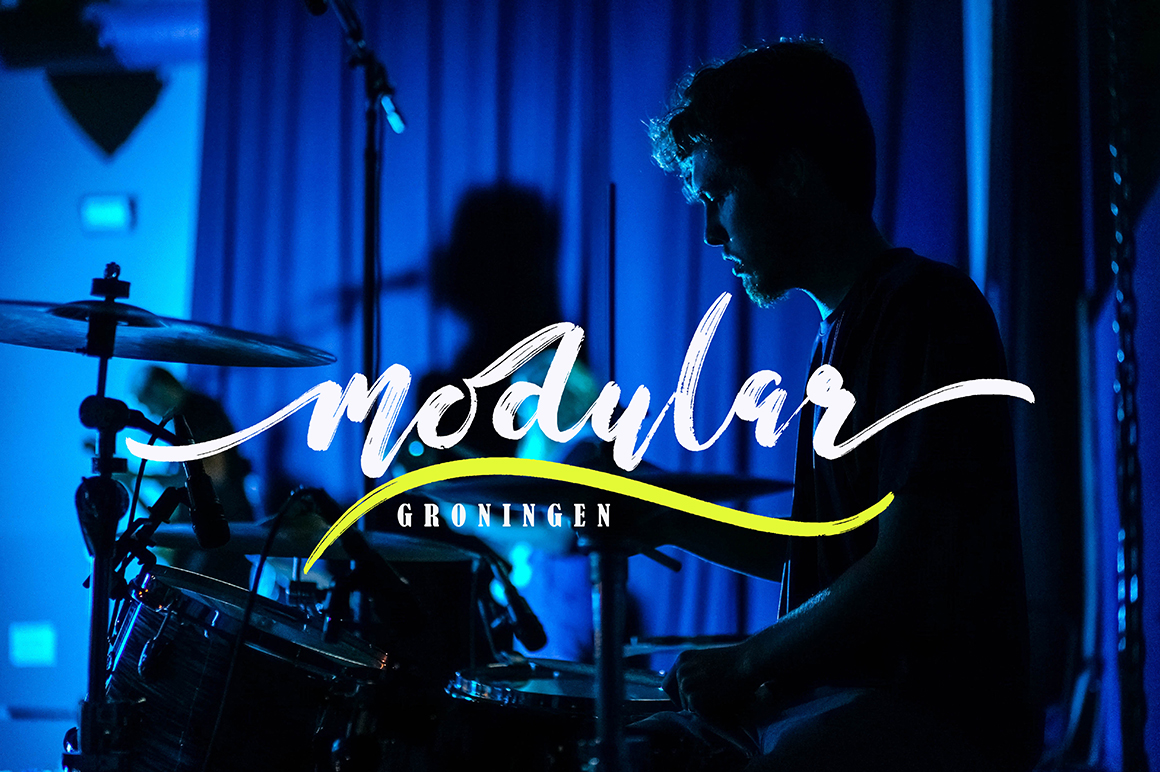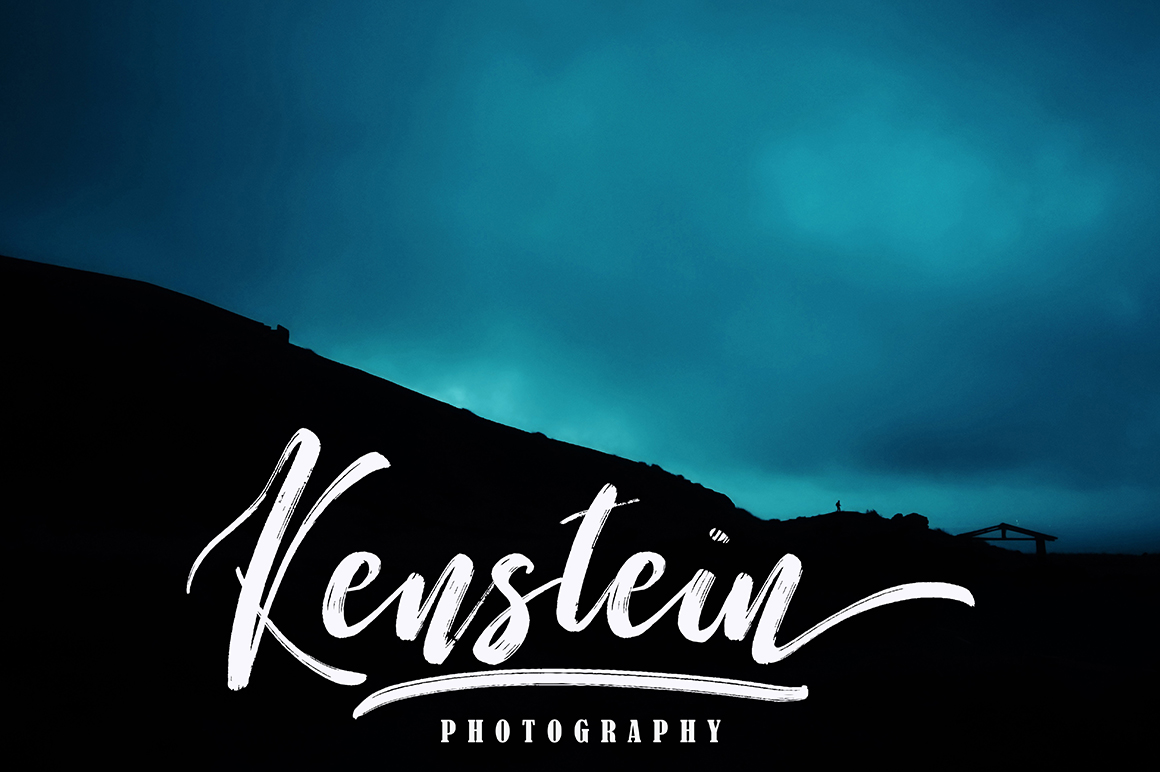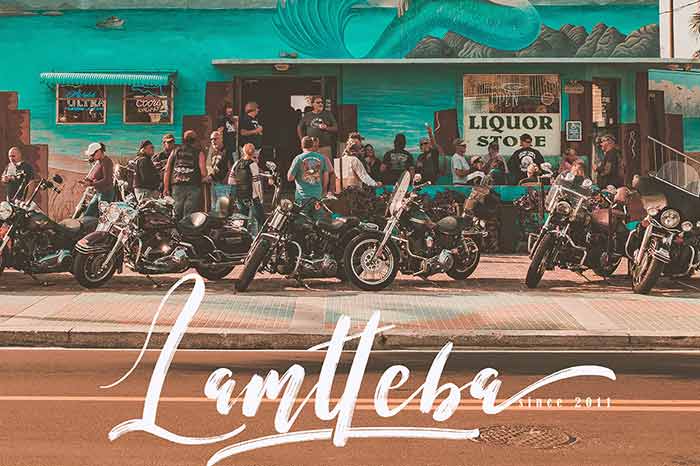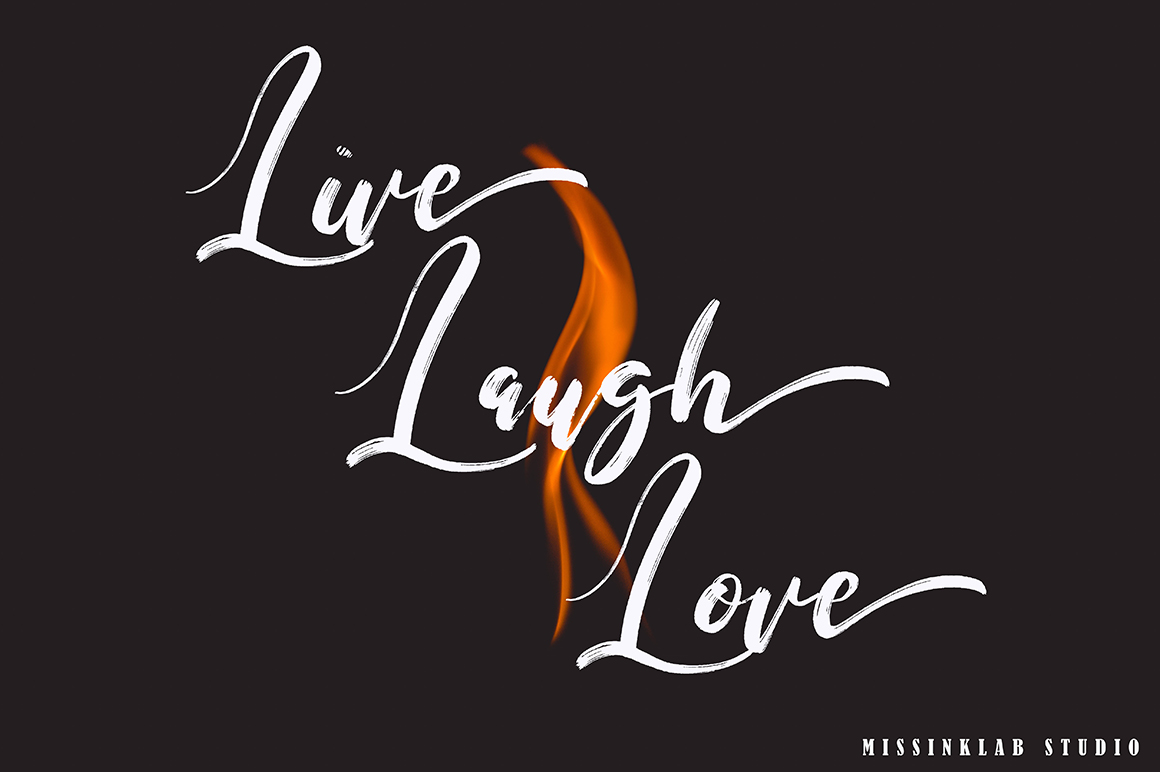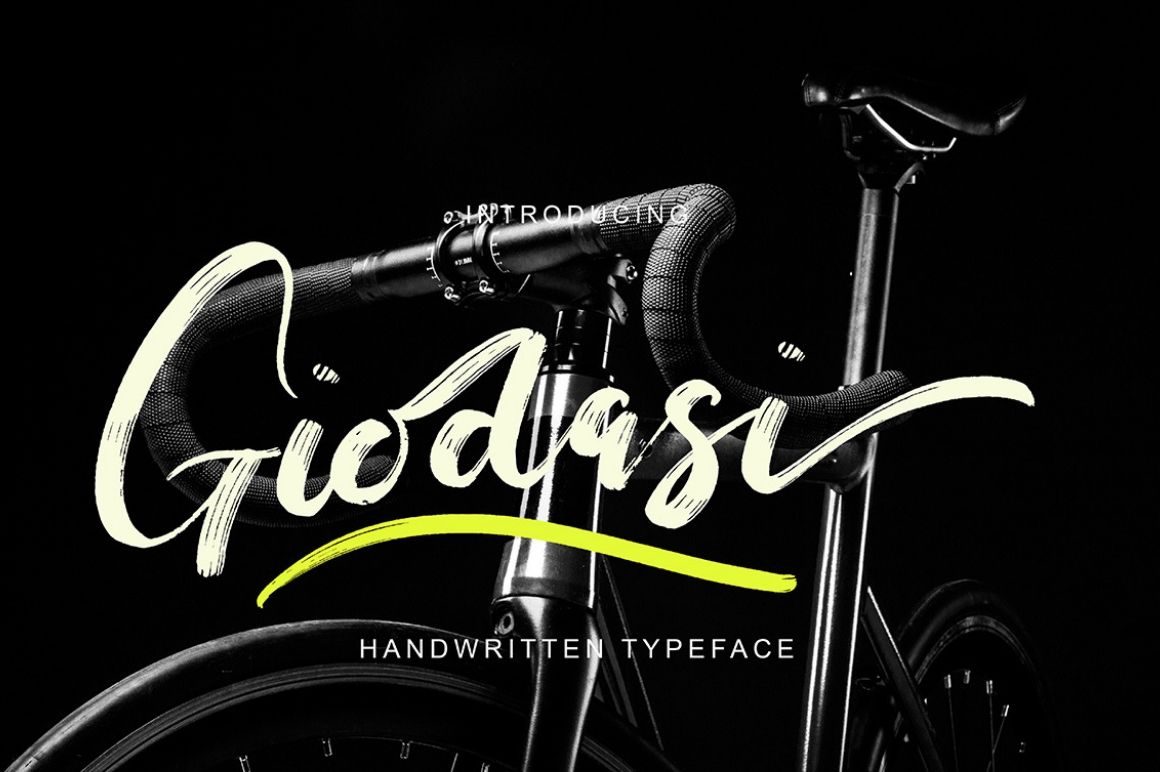
Giodasi Free Font
Giodasi
Giodasi is a modern brush script font with modern style. This font is perfect for many different projects like quotes, logo, blog header, poster, wedding, banding, fashion, apparel, letter, invitation, stationery, etc